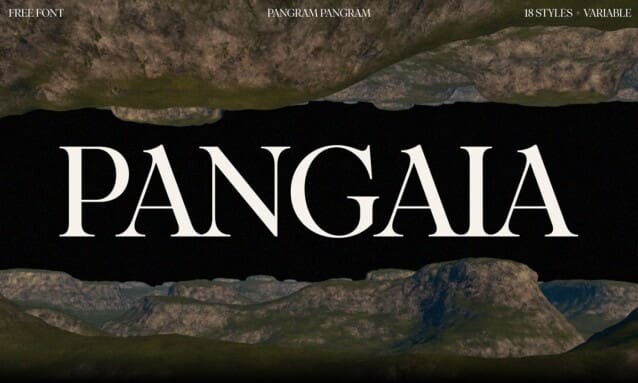
Pangaia Font
Pangaia Font – a typeface seamlessly blending the splendour of traditional serif fonts with the rough, raw, organic beauty of Mother Nature. Drawing directly from the wonder of the Earth and its flora and fauna, Pangaia’s fluid curves inhabit the gentle contours of leaves, riverbanks, and mountain slopes – capturing the joyful, harmonious connection between type, texture and terra firma.